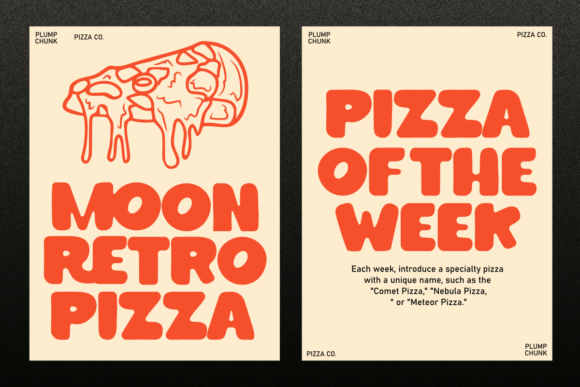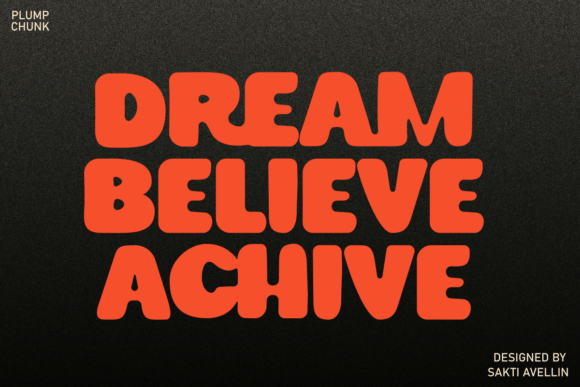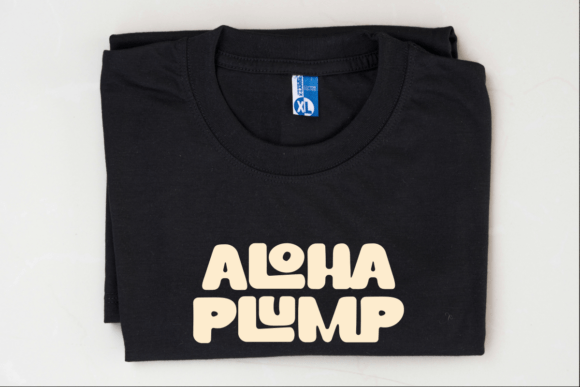
Introduction to Plump Chunk Font
Have you ever been working on a creative project, pouring your heart and soul into it, and suddenly, you need that perfect font to make it truly stand out? That’s exactly what happened to me when I was designing a campaign for a new clothing line. I was searching for a font that would add a touch of playfulness and elegance, and then I stumbled upon Plump Chunk Font – the perfect game-changer.
As a designer, you know how crucial it is to have a reliable and versatile font at your disposal. That’s where Plump Chunk Font comes in – a high-quality, free download that’s perfect for adding a personal touch to your creative endeavors. With its transparent background and engaging ligature features, this font is sure to make your designs shine.
Key Features of Plump Chunk Font
- Unique, playful design ideal for creative projects and advertisements
- High-quality font with transparent background, perfect for overlaying on images
- Includes 4 styles: Regular, Bold, Italic, and Bold Italic for added versatility
- Designed with a large x-height, making it easy to read even at smaller font sizes
- Resolution-independent, ensuring crisp and clear display regardless of screen resolution
Honest Review: Plump Chunk Font
I recently stumbled upon the Plump Chunk Font and was immediately drawn to its unique, playful style. This font is perfect for adding a creative touch to any project. One of the standout features of this font is its transparent background, making it easy to use in a variety of design contexts.
One of the best things about the Plump Chunk Font is that it’s free to download, making it an excellent resource for designers on a budget. The high-quality design is evident in every aspect of the font, from the bold lines to the quirky characters.
Here are some of the things that work well:
- Unique and playful style
- Transparent background for easy use
- The font may not be suitable for professional or formal projects
- The characters can be a bit quirky, which may not be to everyone’s taste
Overall, I’m impressed with the Plump Chunk Font. It’s a great addition to any design resource library and can add a fun touch to creative projects.
Tips for Getting the Most Out of Plump Chunk Font
Use the Plump Chunk Font with a transparent background to create a modern and clean design. Experiment with different font sizes and styles to add depth and visual interest to your creative project. Consider pairing the Plump Chunk Font with other high-quality design resources to enhance your design.
Common Use Cases for Plump Chunk Font
The Plump Chunk Font is ideal for use in creative projects such as blog posts, social media graphics, and presentations. Its high-quality design and versatility make it a great resource for designers and non-designers alike.